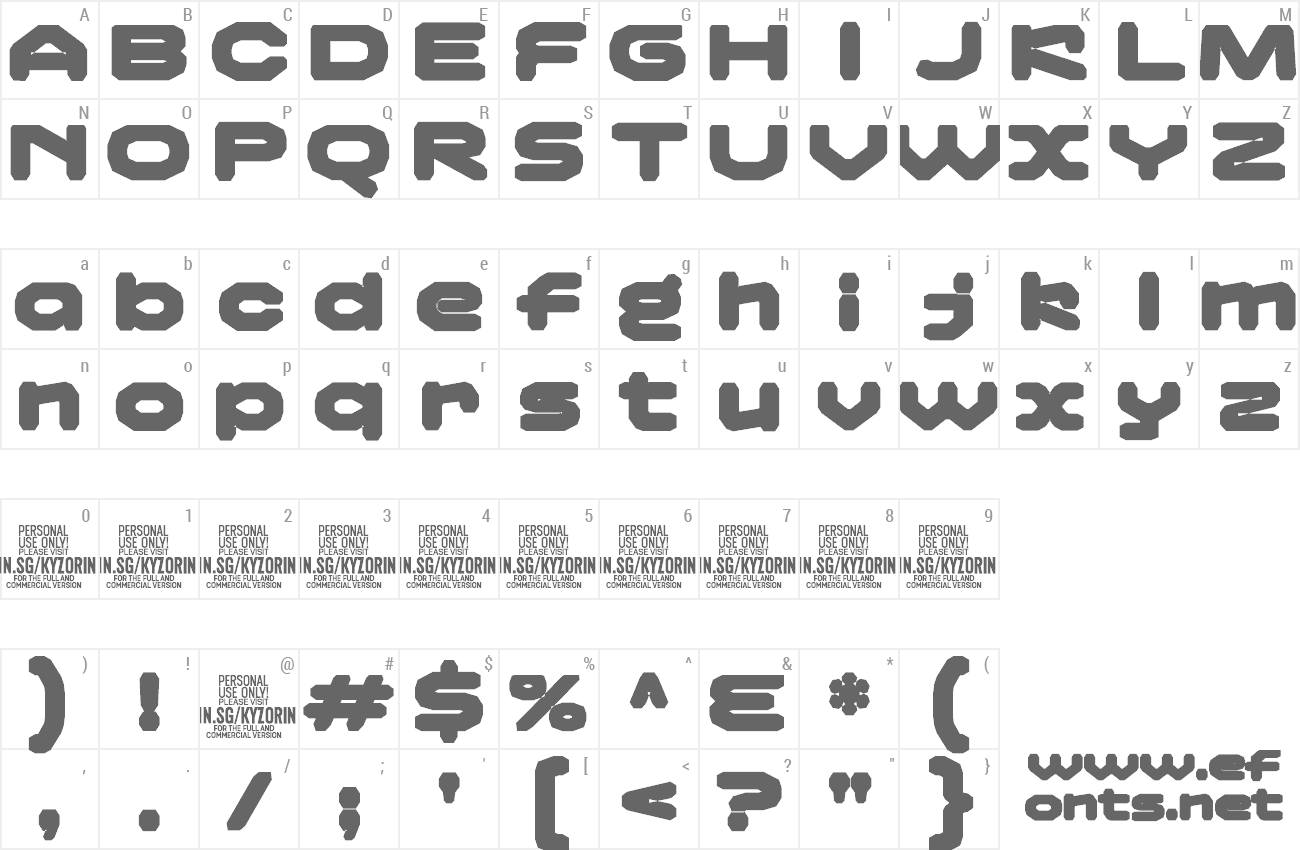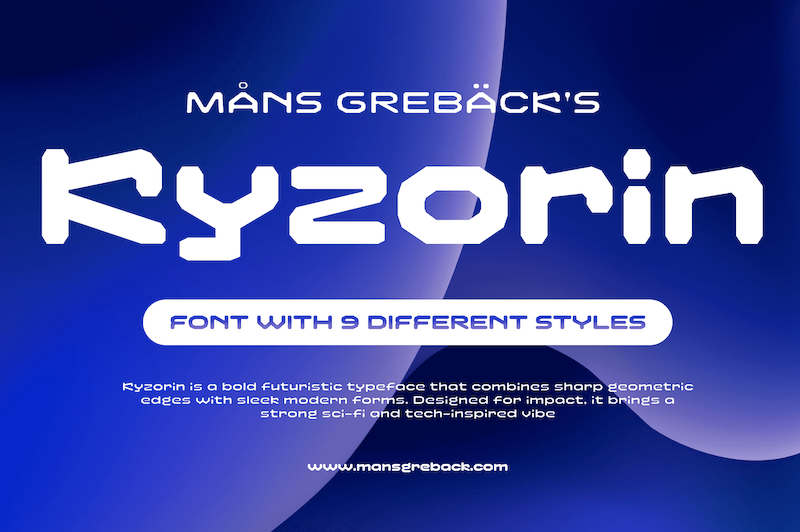
Preview and download Kyzorin Font. Created by Måns Grebäck in Techno Various styles with Free for personal use license.
NOTE: This font is for PERSONAL USE ONLY! To purchase a commercial license, visit: https://www.mansgreback.com/product/kyzorin Kyzorin is a futuristic display typeface constructed with precision and bold confidence. With its octagonal structure and minimalistic, digital-era rhythm, Kyzorin brings a stylized, retro-futuristic flavor while maintaining legibility. The family includes a variety of weights and styles, such as Hatch, Outline, and Extrude, each offering a unique take on the same solid core. For questions, please visit https://mansgreback.com/faq |